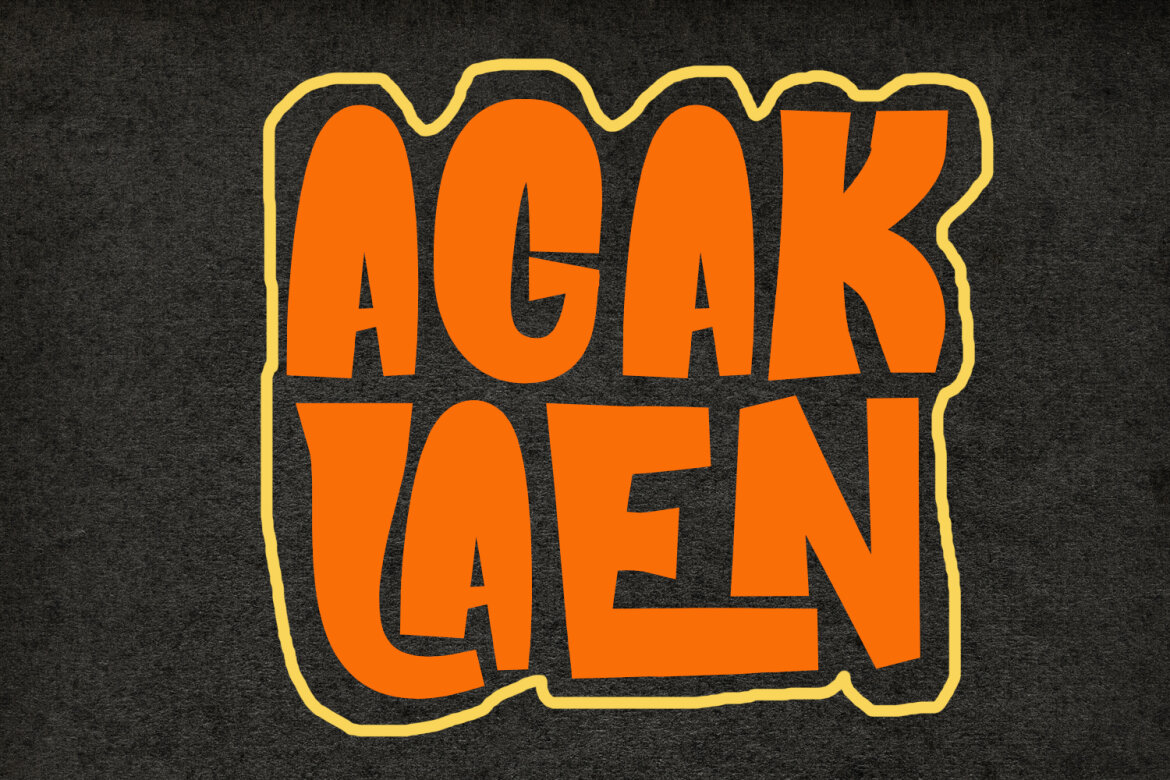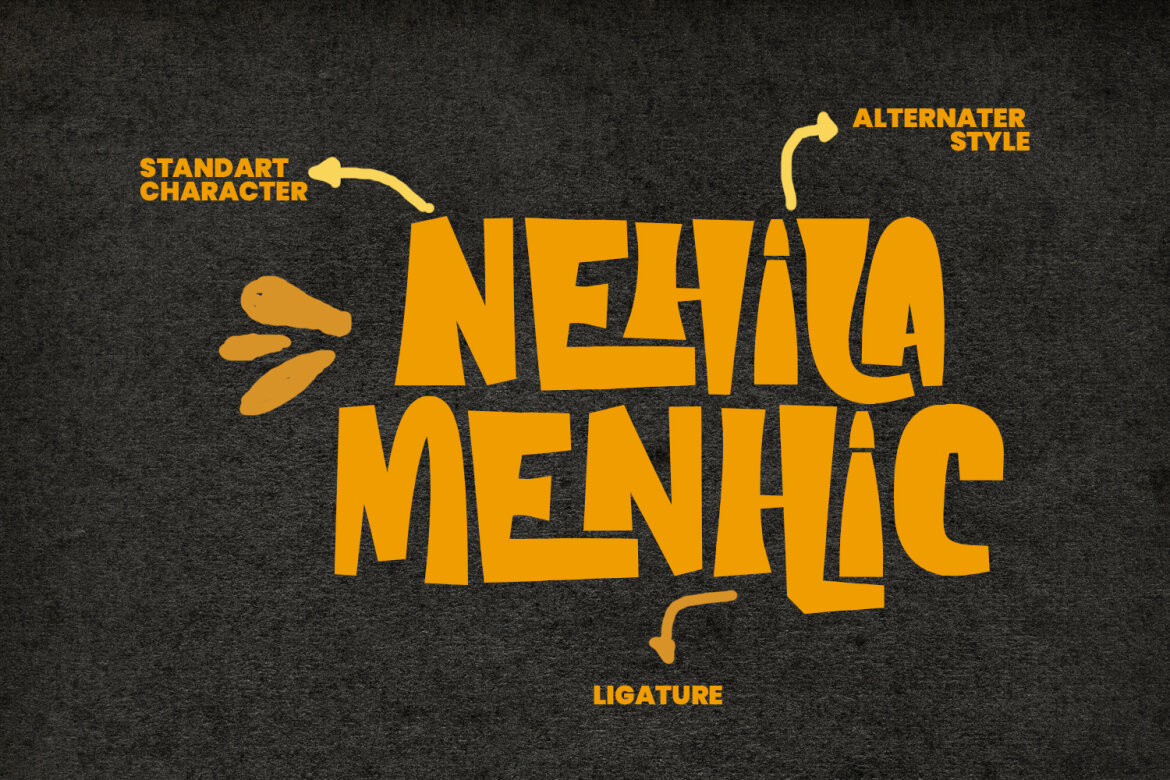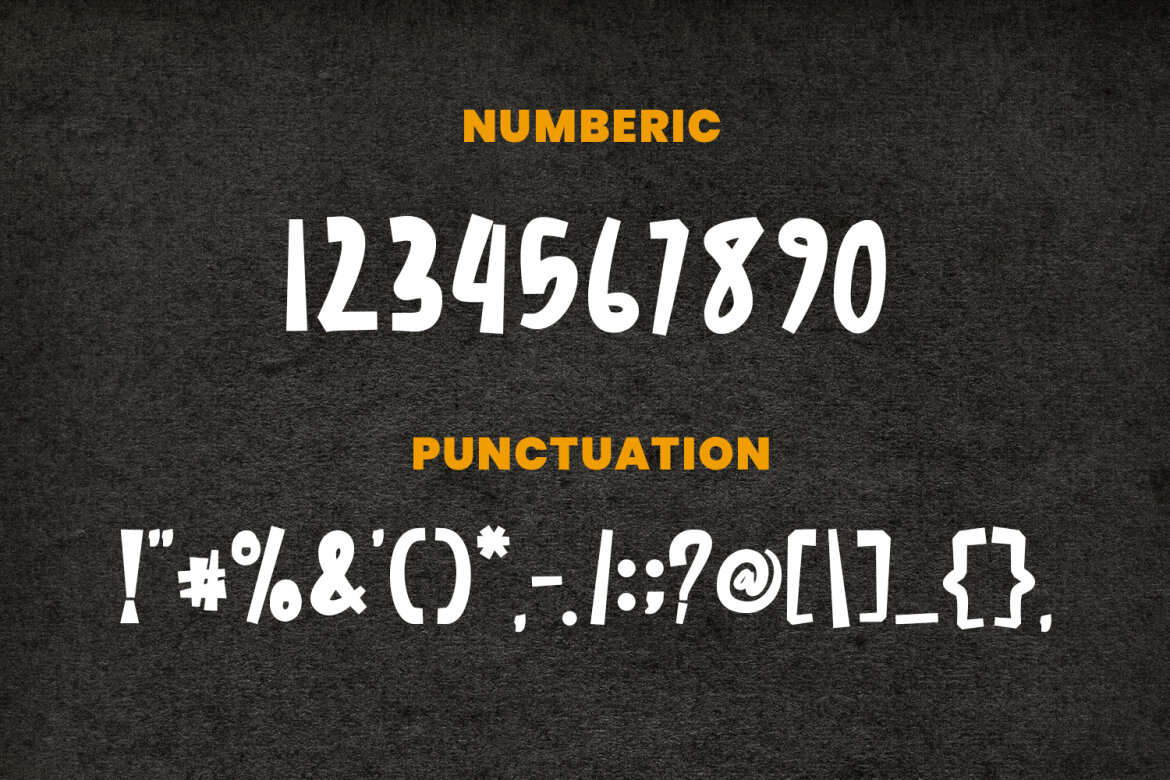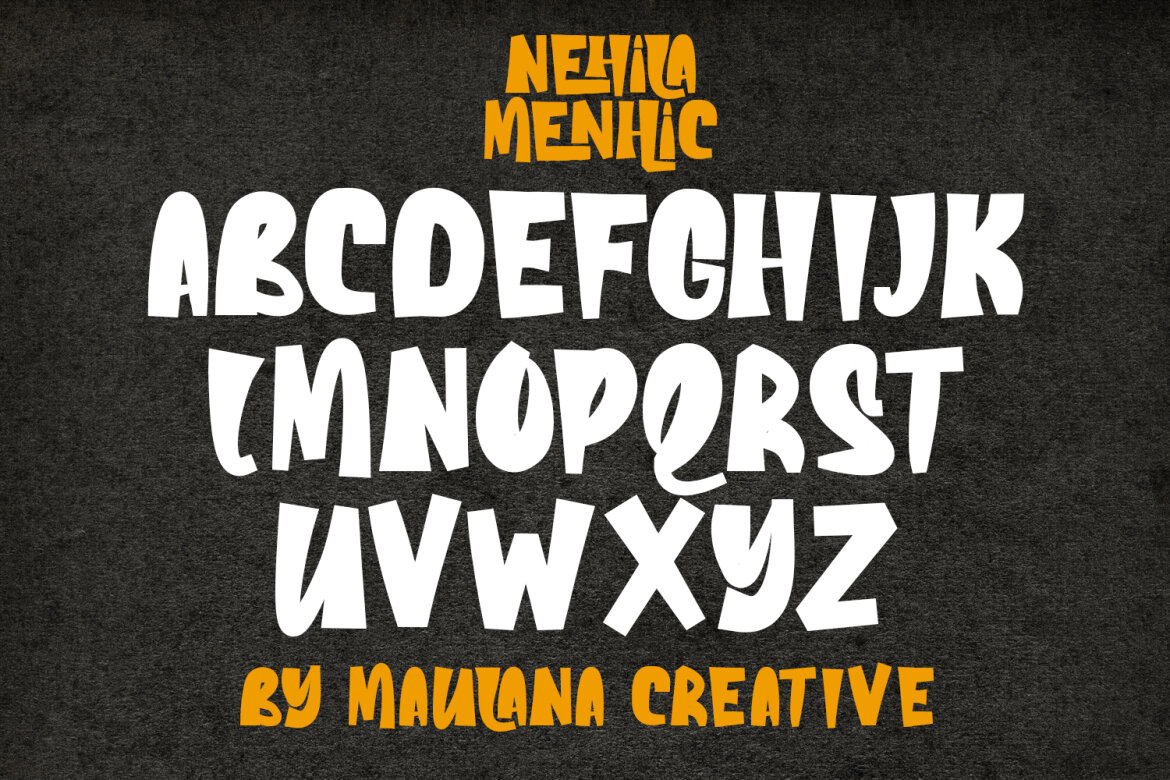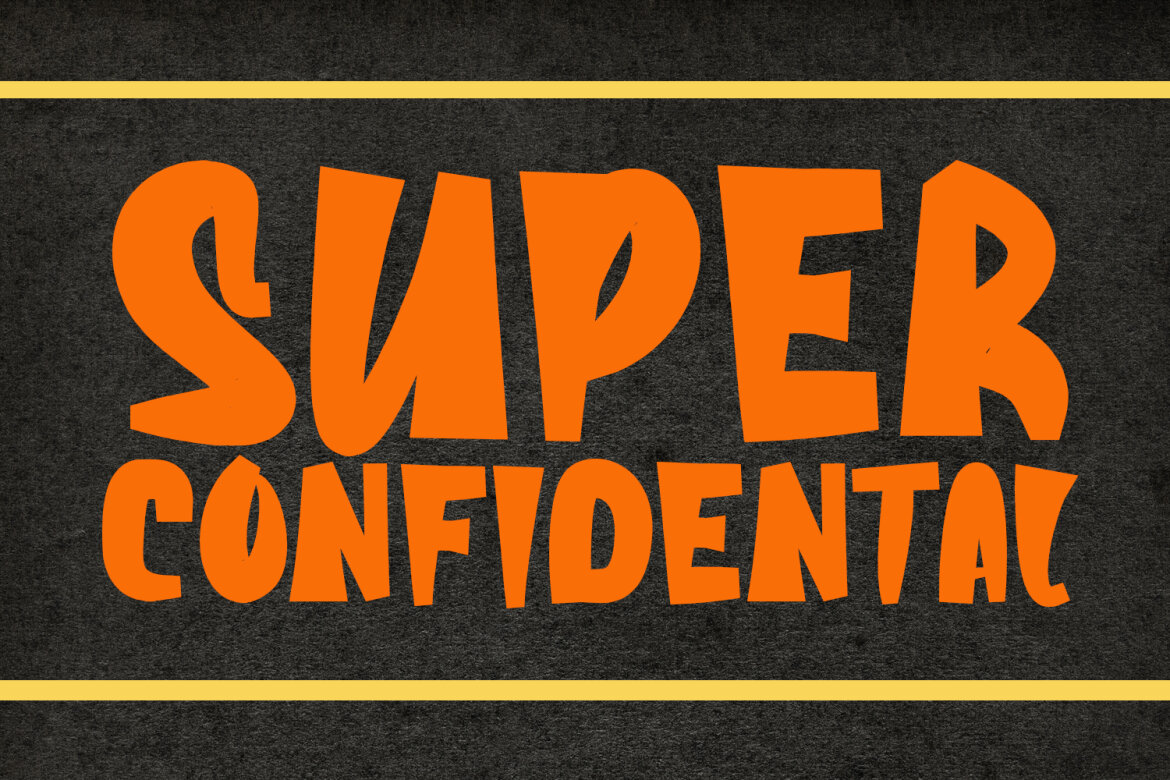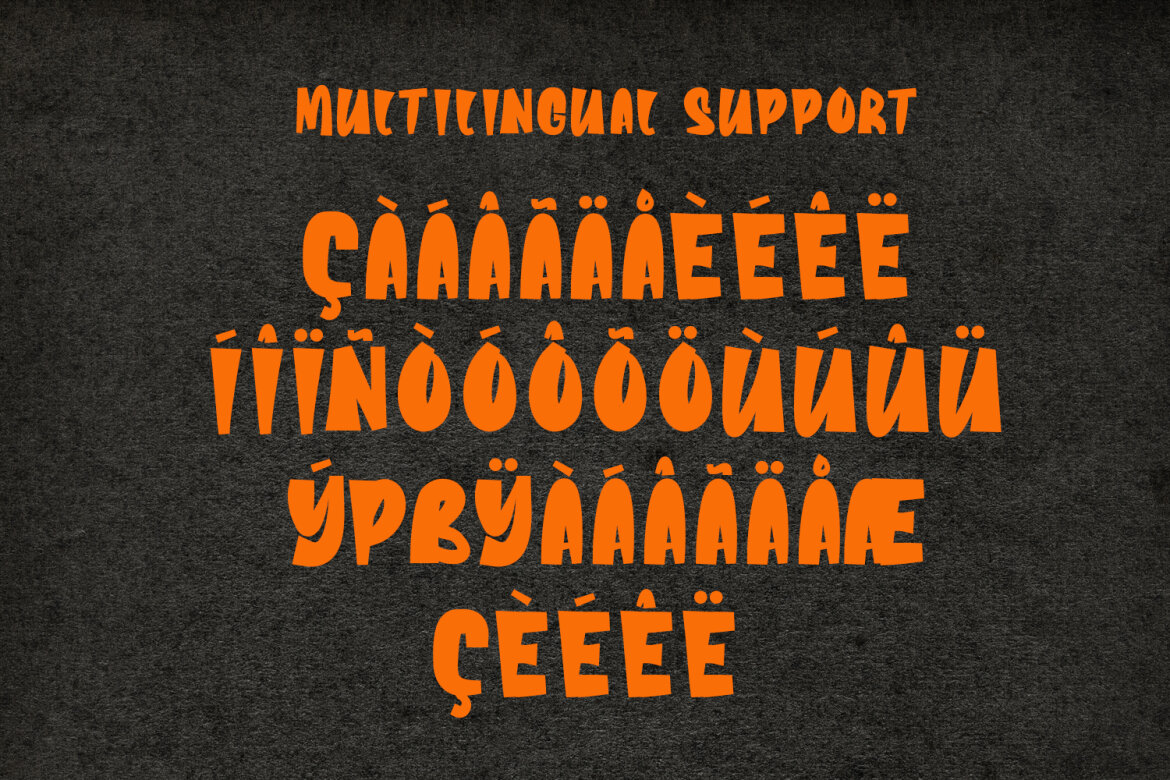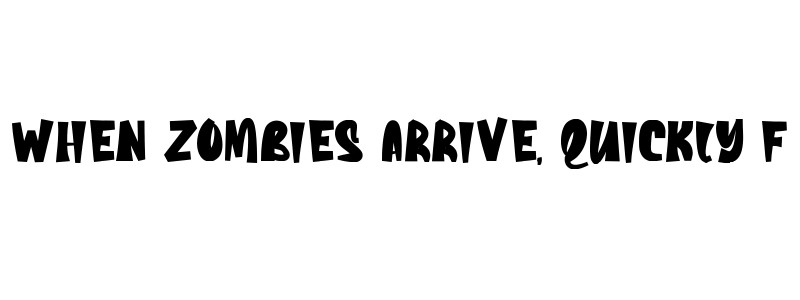
Nehila Menhic Handmade FREE Font
Nehila Menhic
Nehila Menhic handmade display font, fun character with alternates and ligatures. To give you an extra creative work. Nehila Menhic handmade brush display font support multilingual language.